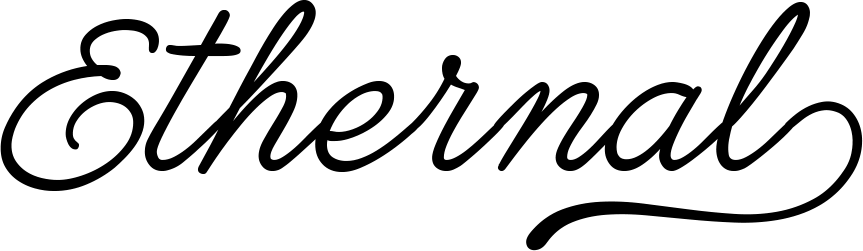
Ethernal Font
For organizing a modern and classic ambiance in your writing style at the same time, Ethernal can be valuable; its artistic and creative design inspired by the script font style makes your displays more approachable, playful, and friendly, while its bold and linked letters give it retro and ancient vibes.
Anyway, this old-school font with two different styles comes here to bring more flexibility in your designing of posters, wedding cards, TV shows, apparel, and others despite lacking numbers.